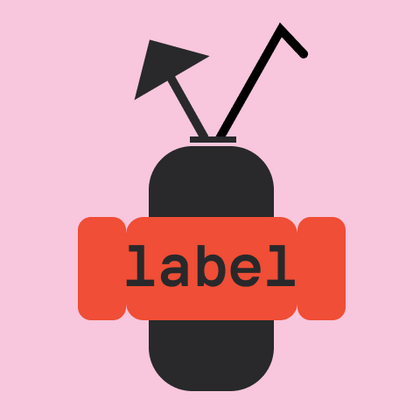
Label fonts
For creating memorable labels, typography must blend functionality with striking visual appeal. Label fonts feature crisp contours, high readability at small sizes, and resilience across various printing methods. The TypeType collection offers a range of options—from sleek Grotesques for technical markings to stylized fonts for premium packaging, all maintaining legibility under complex application conditions such as embossing, UV printing, and thermal transfer.
TT Glips is an experimental monospaced sans serif with a handmade feel. At small sizes it looks technological, but as the size grows, rounded details and soft forms come through.
TT Polihaus is an experimental sans serif that, at first glance, looks ordinary, but then breaks apart, transforming into a stencil pattern.
TT Nooks Serif is a display modern serif with a slight touch of egocentricity. It has a sharp and firm, yet elegant and stately character.
TT Bells combines the elegant softness of Antiqua with a complex and daring temper reflected in straight stroke terminals and arrowheaded serifs. The typeface is based on the broad nib, which creates these hallmark terminals and serifs.
TT Severs is a geometric sans serif with emphasized elements of internal brackets. The main visual feature of TT Severs is the unusual form of internal ovals.
TT Jenevers is a modern serif with a Dutch flavor. The font family features the characteristic details peculiar to Dutch serifs—these are the asymmetrical shape of serifs and an irregular slant of ovals.
TT Regins is a Scottish modern serif. Striking contrast and sharp triangular serifs give this font a stern and commanding character, while refined forms, enlarged lowercase letters, and slightly condensed, static proportions add grace to its design.
TT FRANTZ IS AN EXPERIMENTAL VARIABLE FONT, DISTINGUISHED BY ITS SLIMNESS AND LIGHTNESS. THE VARIATION IN THE FONT AFFECTS THE CHANGE IN THE HEIGHT OF THE MEAN LINE—BY MOVING THE AXIS ADJUSTMENT SLIDER YOU CAN EASILY RAISE OR LOWER THE MEAN LINE OF THE FONT.
TT Ricordi Allegria is a sleek and intelligent contemporary Florentine grotesque.
TT Bakers is a fluid serif with a gentle and lively character. This font is like freshly baked goods: it`s warm and soft, especially in its bolder weights.
TT Modernoir is a display sans serif with dynamic proportions. Fluid lines and delicate Art Nouveau forms in this typeface blend seamlessly with the rhythmic flow and improvisational freedom of jazz.